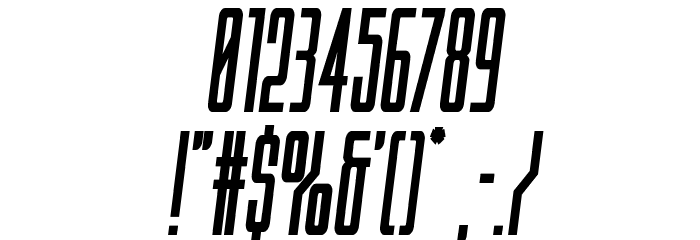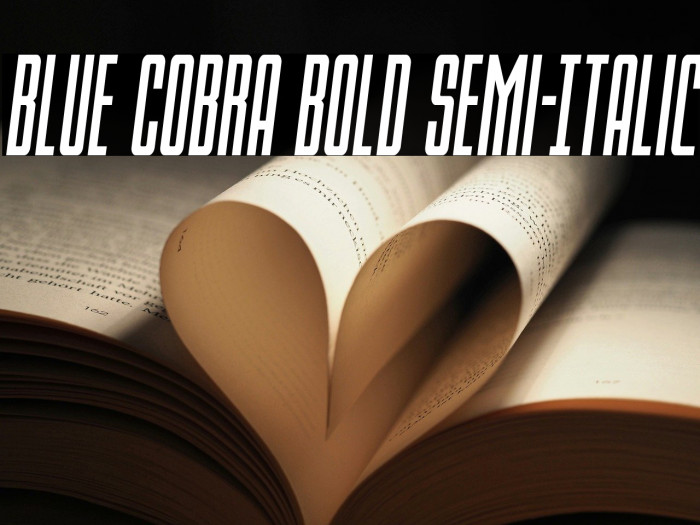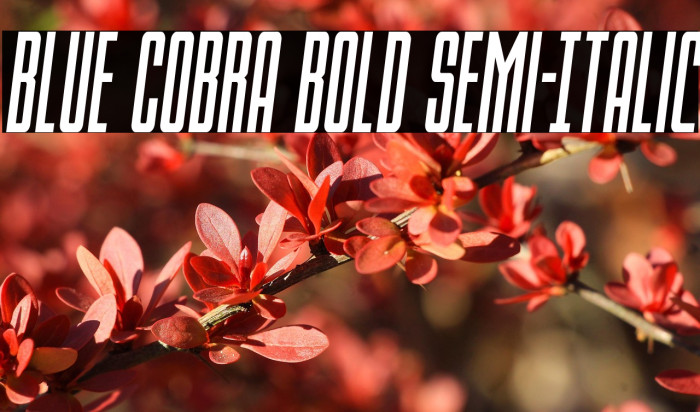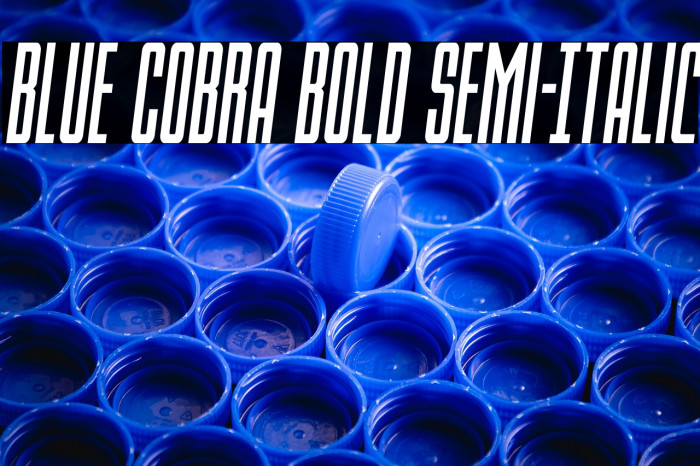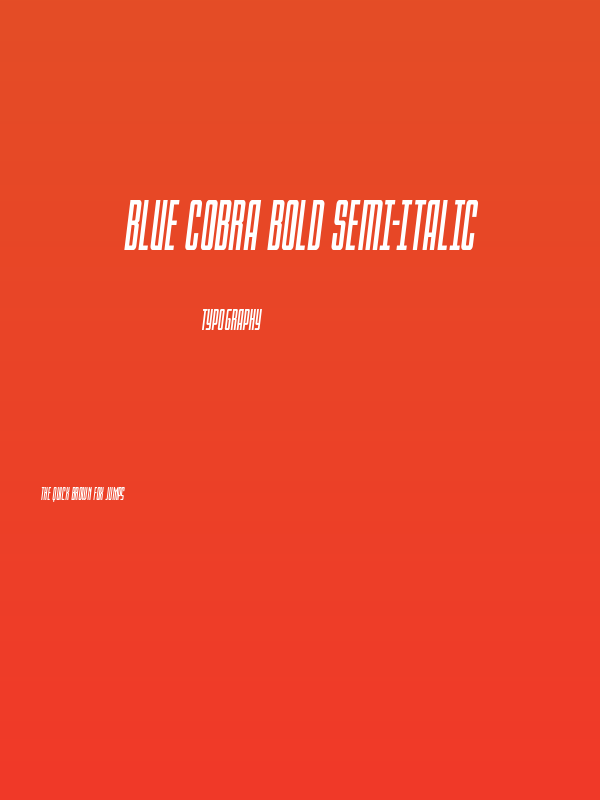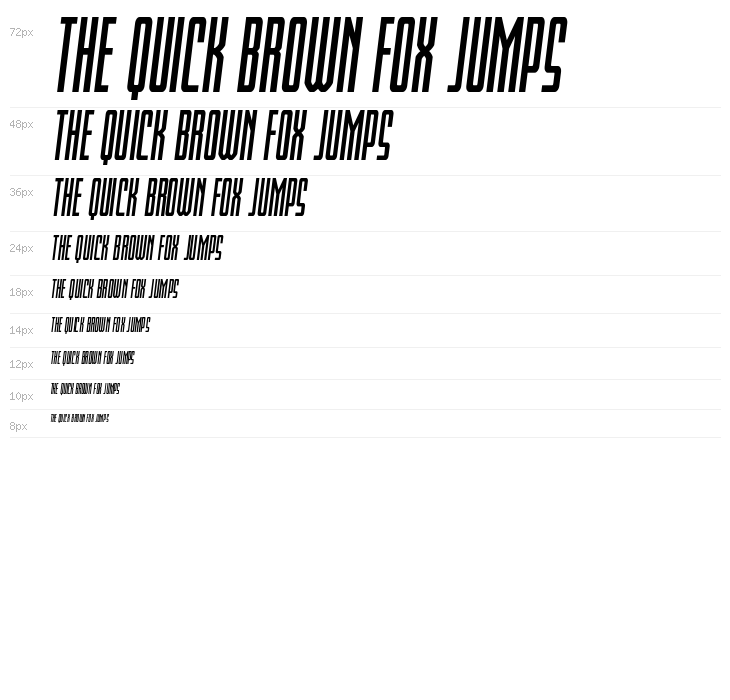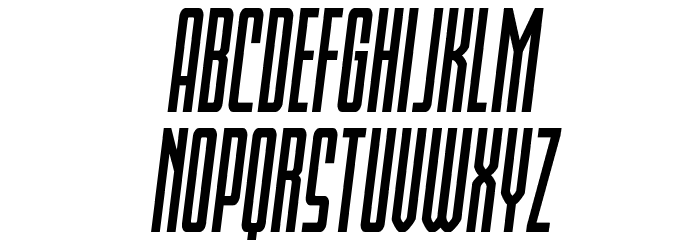
Blue Cobra Bold Semi-Italic Font
Blue Cobra Bold Semi-Italic Description
This font features a bold and semi-italic style with a strong, dynamic presence. The characters are tall and narrow, giving a condensed appearance that emphasizes verticality. The strokes are consistent in weight, providing a uniform look across all characters. The slight slant adds a sense of motion and energy, making it suitable for projects that require a modern and assertive aesthetic. The uppercase and lowercase letters maintain a cohesive design, while the numerals and special characters are crafted to match the overall style. This font is ideal for attention-grabbing headlines, branding, and logos where a bold statement is needed.